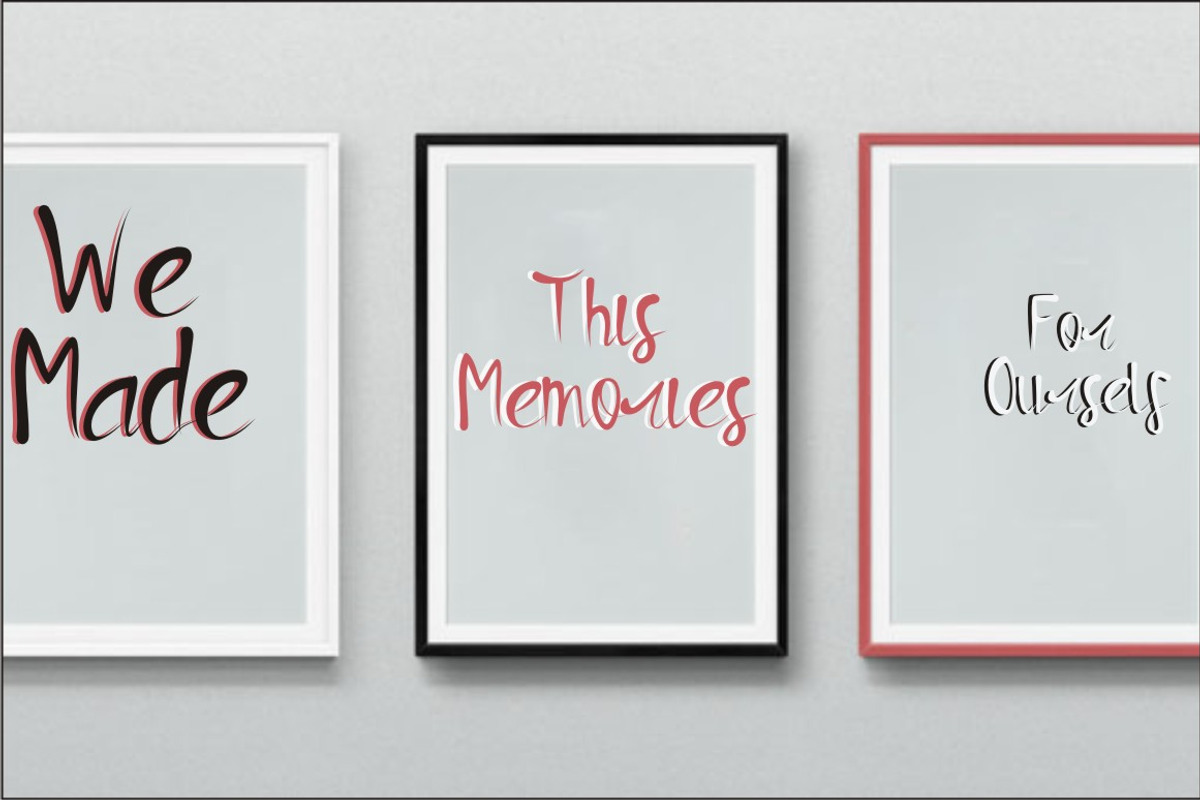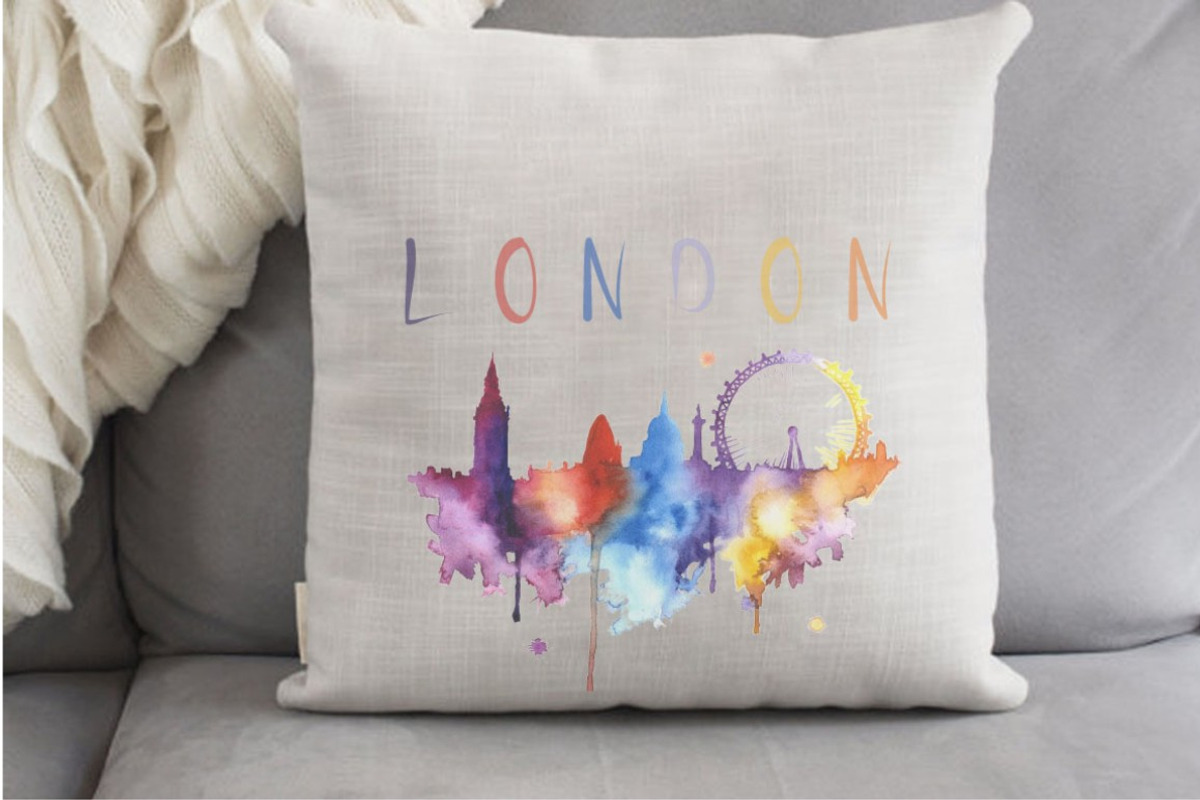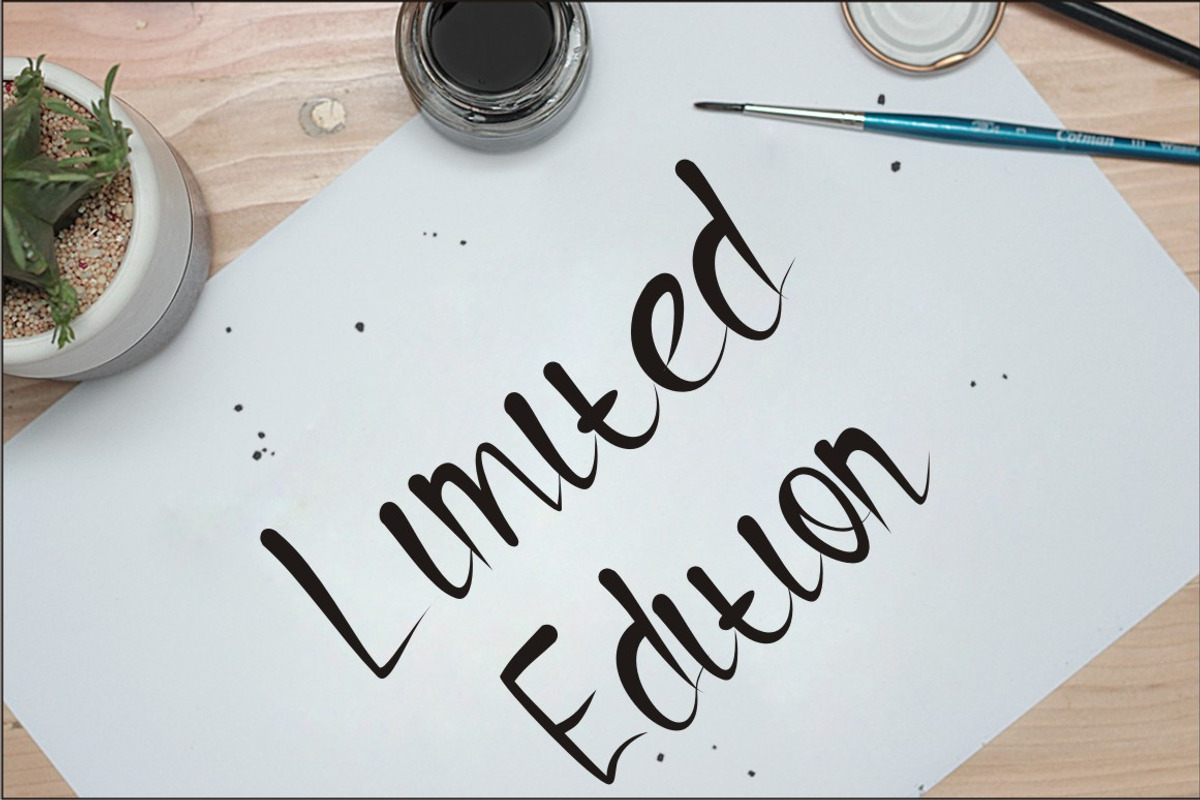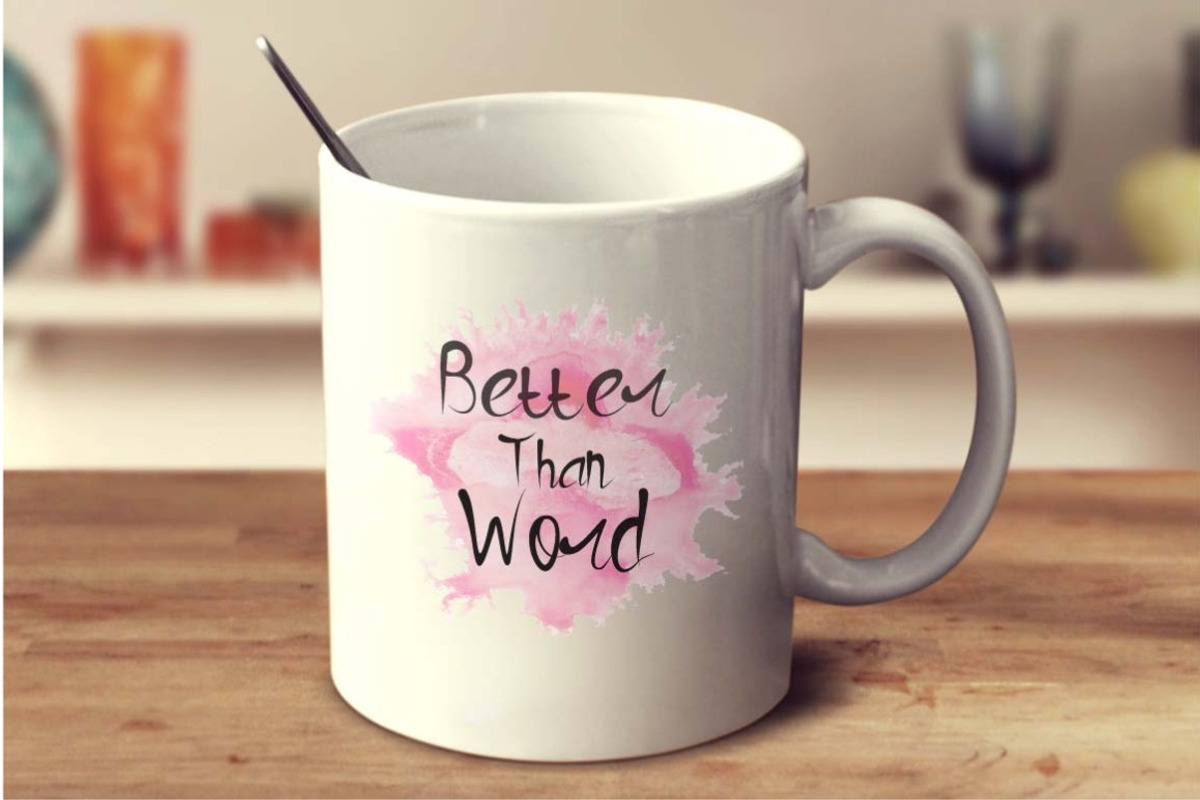
Photograph Script
Photograph Script is a handwritten stylish calligraphy font with classic and elegant touch. Can be used for headings, signature, logos, wedding invitation, lable, news, posters, t-shirt, letterhead, badges etc